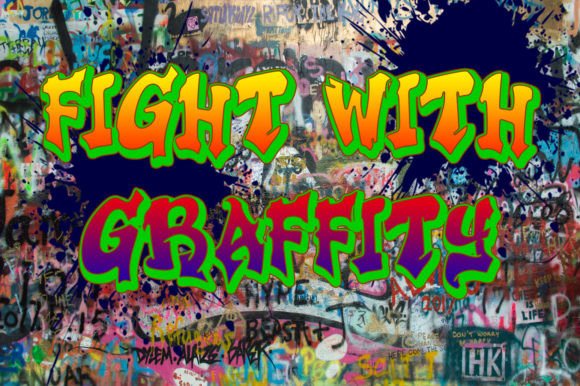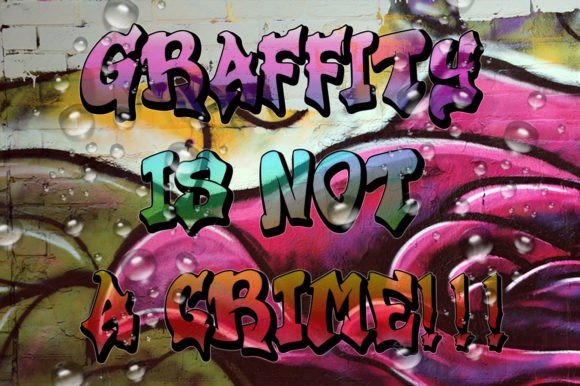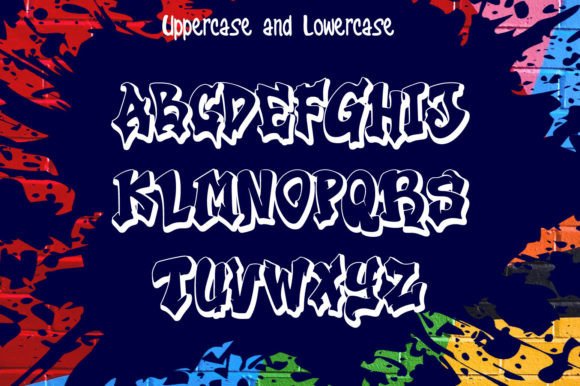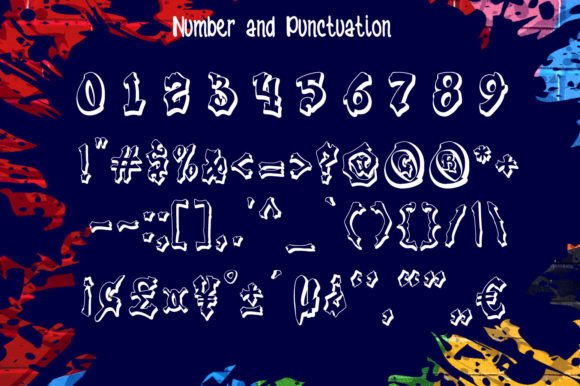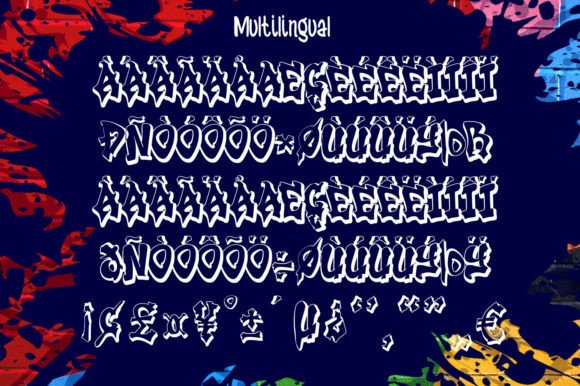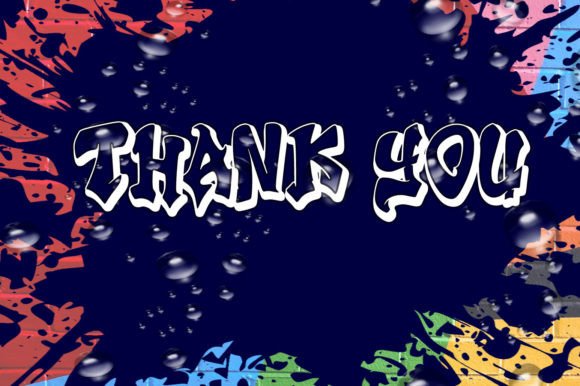
Unleash Your Creativity with Gravitology Font: The Ultimate Graffiti-Style Display Font
Are you tired of using the same old fonts in your design projects? Do you want to add a touch of modernity and coolness to your creations? Look no further than Gravitology Font, a unique and stylish graffiti-style display font that’s perfect for a wide range of applications. In this article, we’ll dive into the world of Gravitology Font and explore its features, benefits, and uses, helping you to unlock its full potential and take your designs to the next level.
What is Gravitology Font?
Gravitology Font is a one-of-a-kind, graffiti-style display font that’s designed to make a statement. Its cool and modern personality is suitable for a wide spectrum of applications, from branding and advertising to packaging and digital media. With its unique and edgy style, Gravitology Font is sure to grab attention and leave a lasting impression on your audience.
Key Features of Gravitology Font
So, what makes Gravitology Font so special? Here are some of its key features:
- Unique Graffiti-Style Design: Gravitology Font boasts a distinctive graffiti-style design that’s perfect for adding a touch of urban flair to your projects.
- Modern and Cool Personality: This font exudes a modern and cool personality that’s sure to resonate with your audience.
- Highly Versatile: Gravitology Font is suitable for a wide range of applications, from digital media to print materials.
Benefits of Using Gravitology Font
So, why should you choose Gravitology Font for your design projects? Here are some of the benefits of using this amazing font:
- Adds a Touch of Modernity: Gravitology Font adds a touch of modernity and coolness to your designs, helping you to stand out from the crowd.
- Grabs Attention: This font is designed to grab attention and make a statement, making it perfect for headlines, titles, and other display text.
- Enhances Creativity: Gravitology Font is a versatile font that can be used in a variety of creative ways, helping you to unleash your imagination and bring your ideas to life.
- Perfect for Branding and Advertising: This font is ideal for branding and advertising projects, helping you to create a unique and memorable visual identity.
Uses of Gravitology Font
So, what can you use Gravitology Font for? The possibilities are endless! Here are some ideas to get you started:
- Branding and Advertising: Use Gravitology Font to create a unique and memorable visual identity for your brand or product.
- Digital Media: This font is perfect for digital media projects, such as social media graphics, videos, and websites.
- Packaging and Labels: Add a touch of modernity and coolness to your packaging and labels with Gravitology Font.
- Print Materials: Use this font for print materials, such as brochures, flyers, and posters.
Tips and Tricks for Using Gravitology Font
Here are some tips and tricks for getting the most out of Gravitology Font:
- Experiment with Different Sizes and Colors: Don’t be afraid to experiment with different sizes and colors to create a unique and eye-catching effect.
- Use it for Headlines and Titles: Gravitology Font is perfect for headlines and titles, helping you to grab attention and make a statement.
- Combine it with Other Fonts: Try combining Gravitology Font with other fonts to create a unique and interesting visual effect.